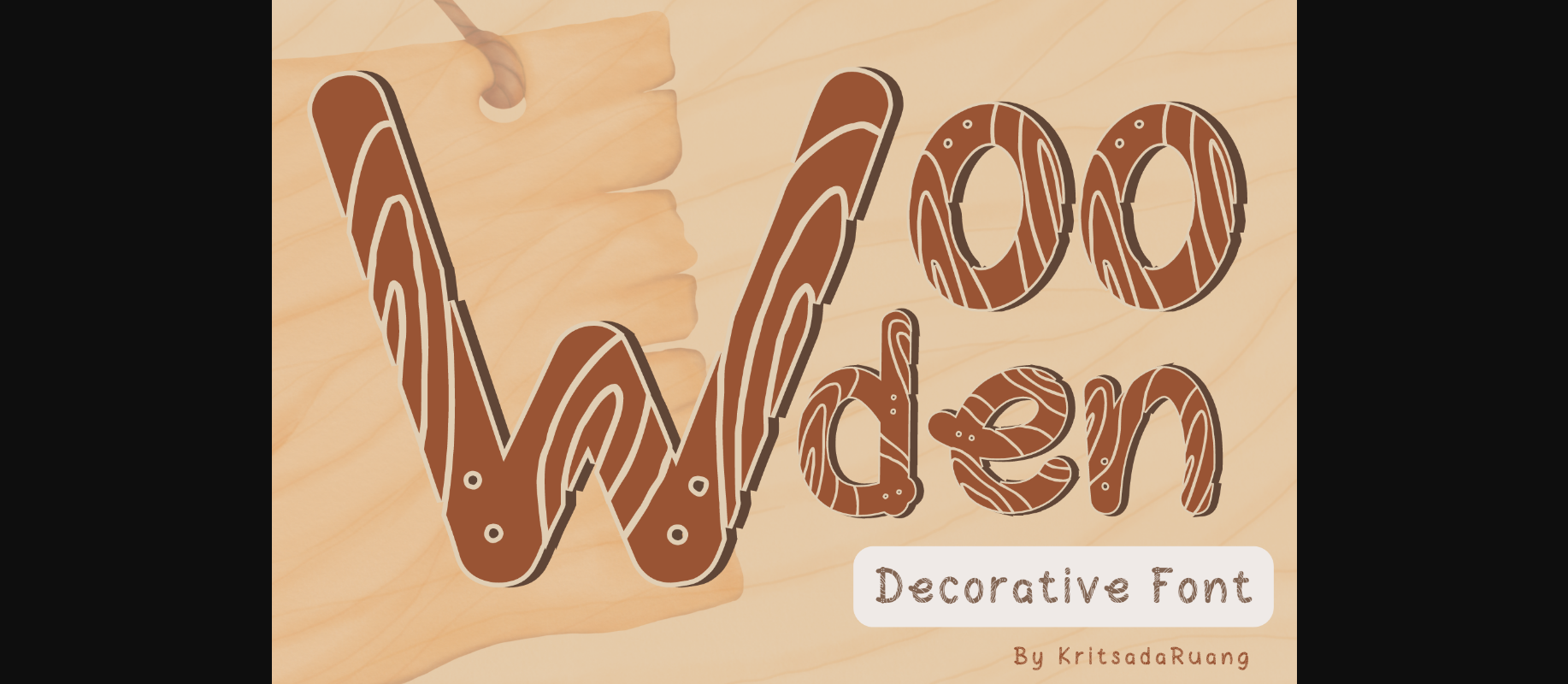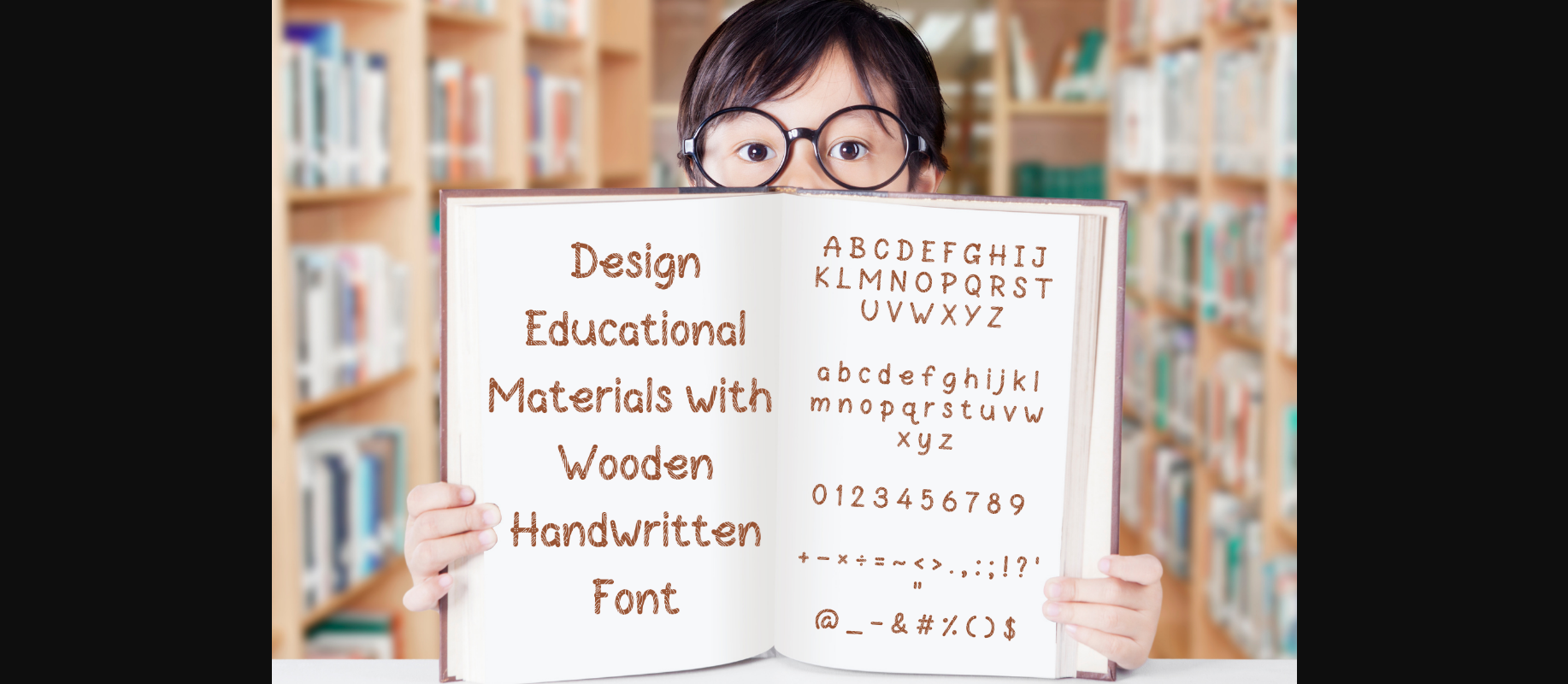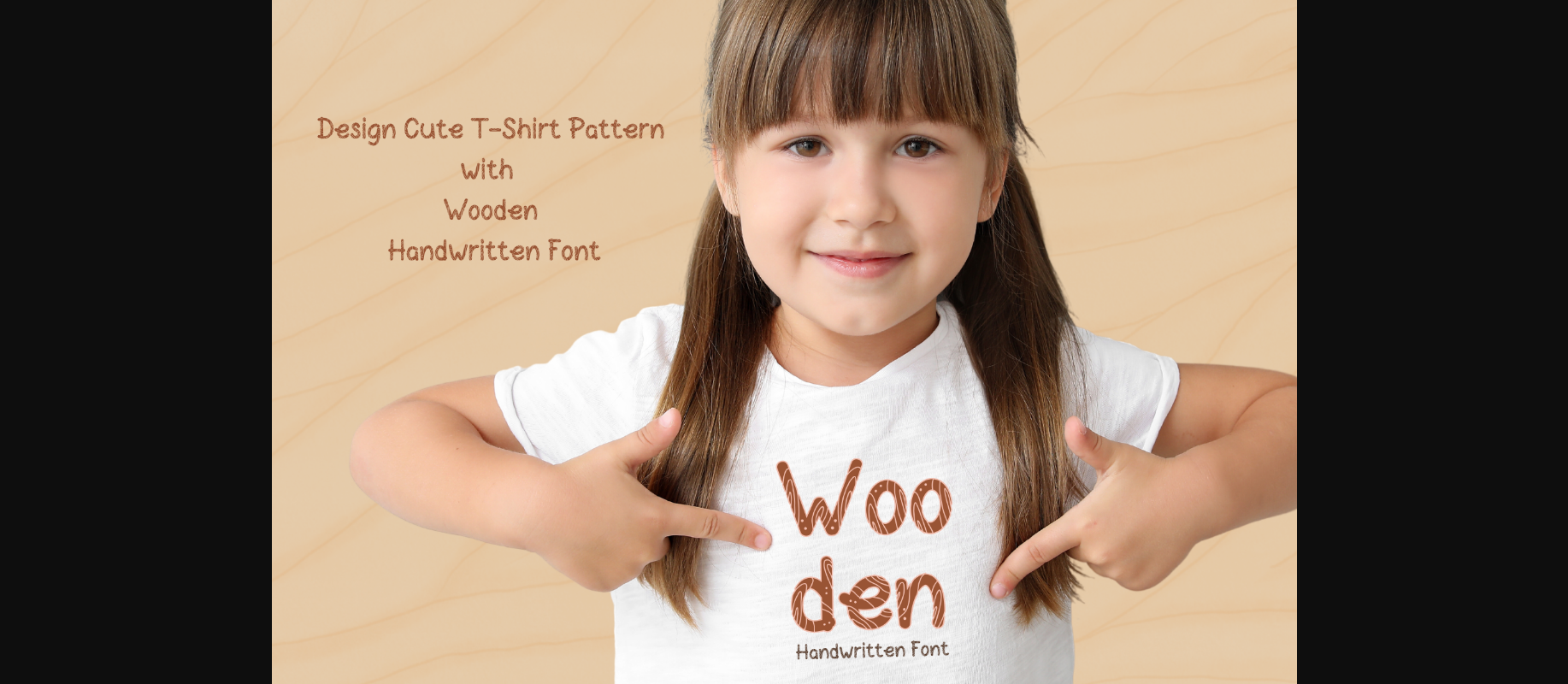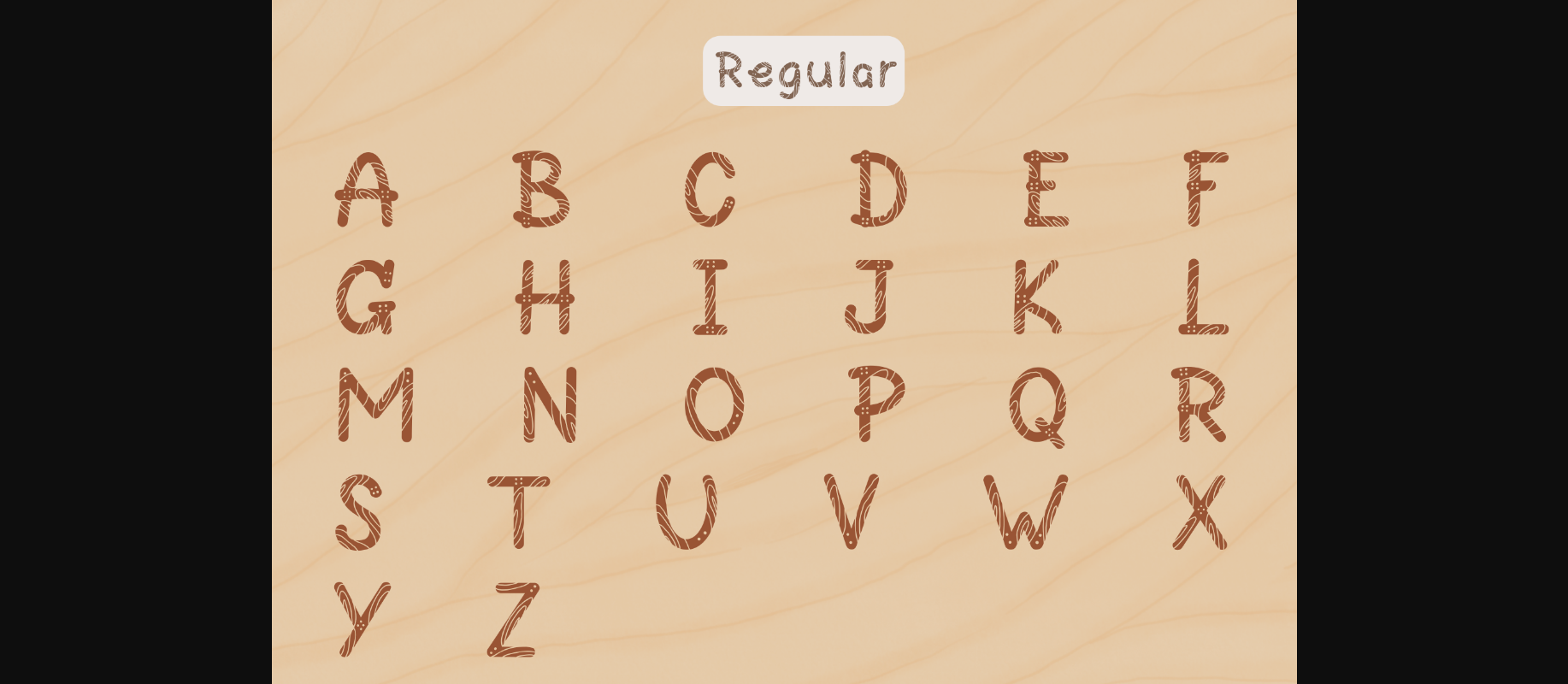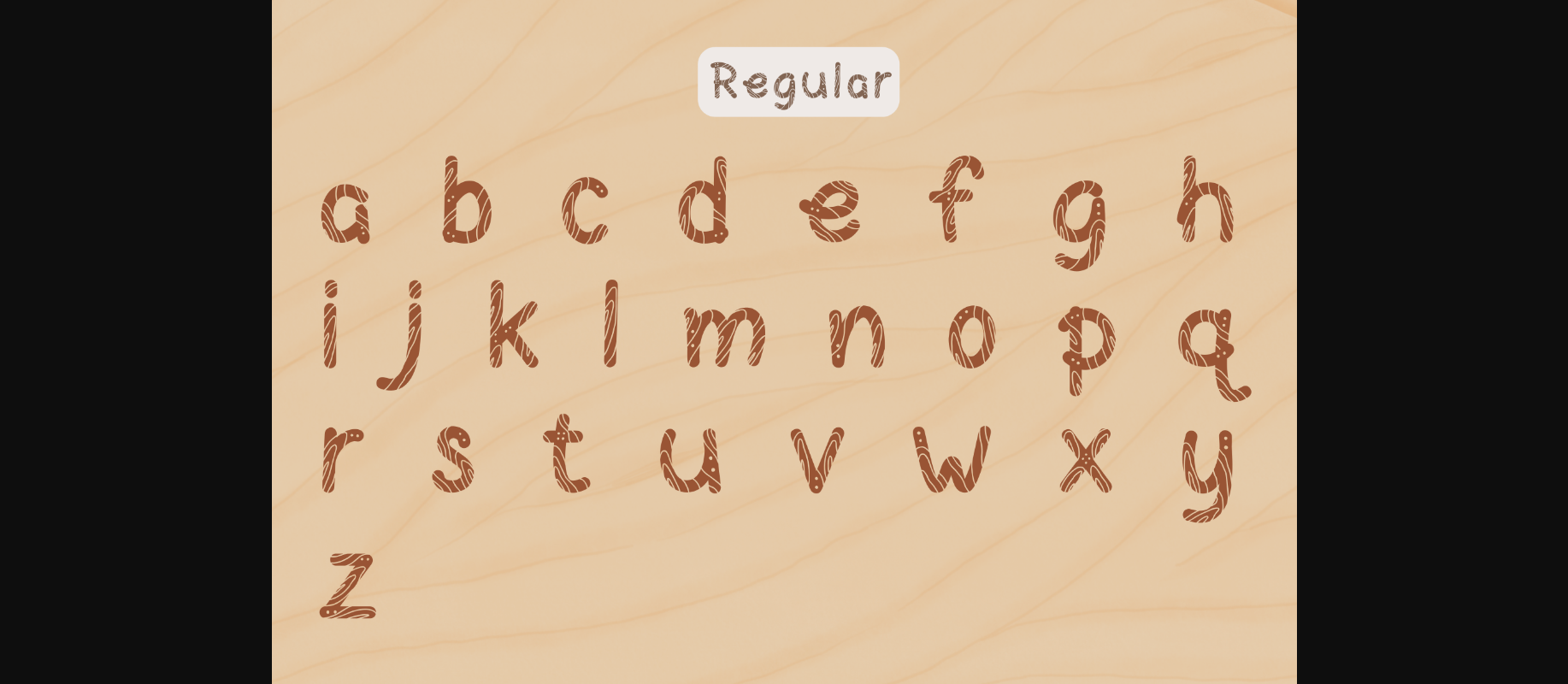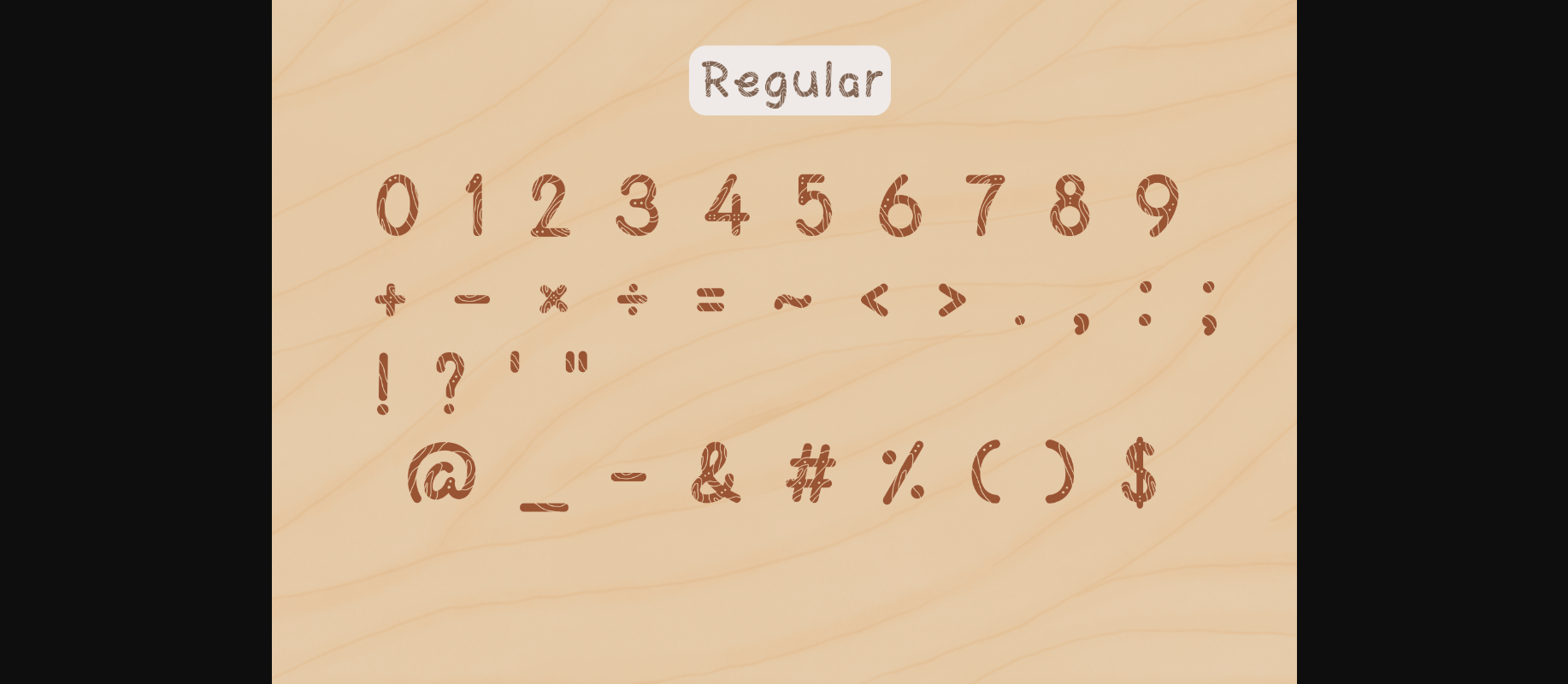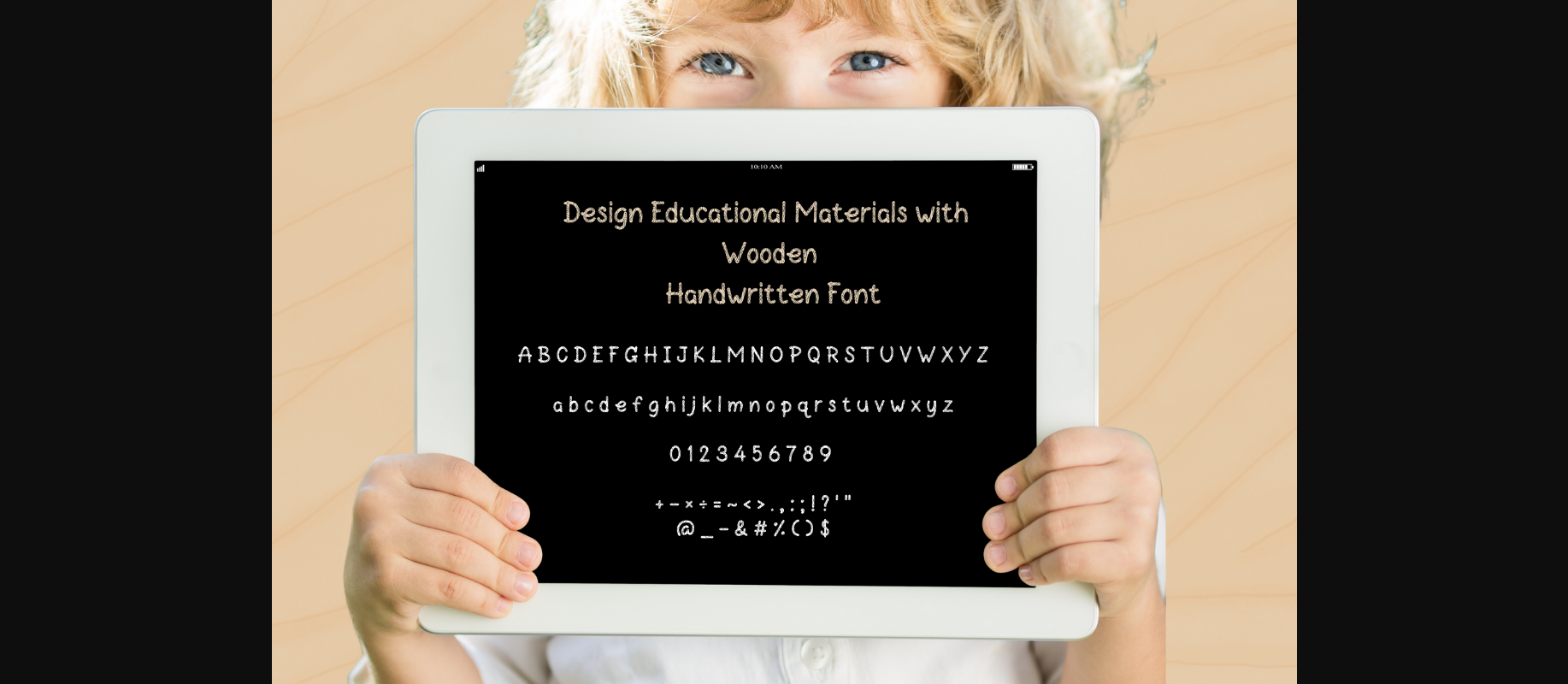
Wooden Font
About Wooden Font
Wooden is a decorative font created to match the surface pattern of wood. It is suitable for use as a decorative element in a historical narrative about trees, trees, conservation landscape, camping, or other activities connected to forests, nature conservation, or environmental preservation.